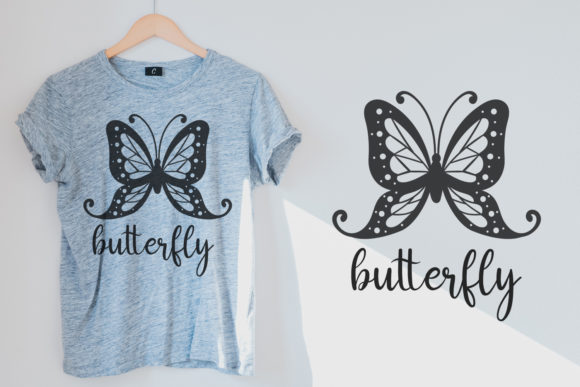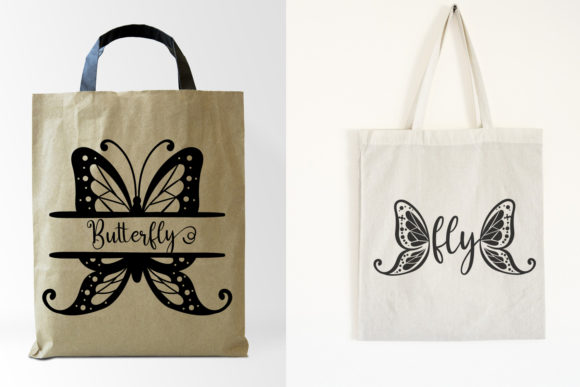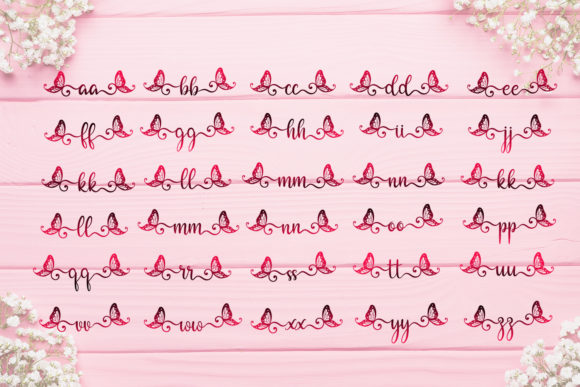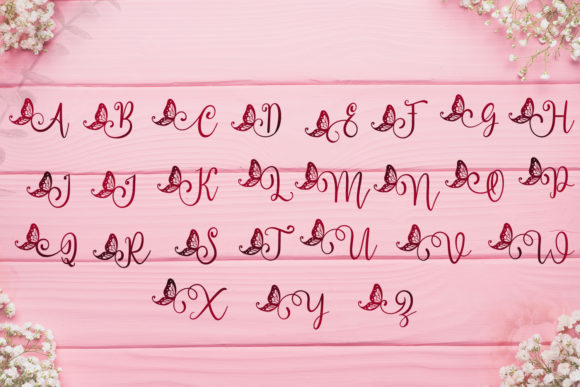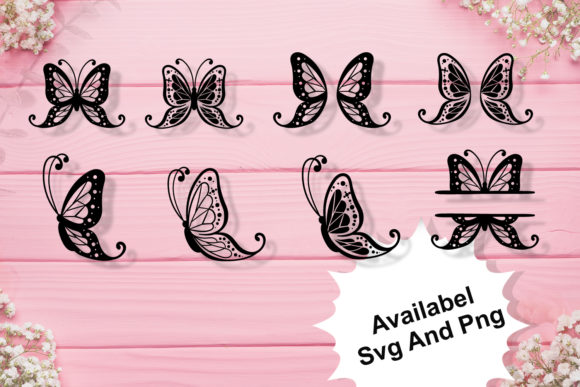
Discover the Elegance of Adelina Font: A Perfect Choice for Designers and Crafters
Are you looking for a font that exudes charm and elegance? Look no further than the Adelina Font. This beautiful, handwritten font is perfect for adding a touch of sophistication to any design project. Whether you’re working on wedding invitations, thank you cards, quotes, greeting cards, logos, business cards, or any other design that needs a personal touch, Adelina Font is an excellent choice.
What Makes Adelina Font So Special?
Adelina Font is a stunning script font that feels equally charming and elegant. Its unique features make it stand out from other fonts, making it a must-have for designers and crafters. Here are some of the key features that make Adelina Font so special:
- PUA Encoding: Adelina Font is PUA encoded, which means you can access all of the glyphs and swashes with ease. This makes it easy to use and customize, even for those who are new to font design.
- Varying Baseline: The font features a varying baseline, which gives it a natural, handwritten look. This makes it perfect for designs that need a personal touch.
- Smooth Lines: Adelina Font has smooth lines that flow effortlessly, creating a beautiful and elegant look.
- Gorgeous Glyphs: The font comes with a range of gorgeous glyphs, including stunning alternates. This allows you to add variety and interest to your designs.
Perfect for a Range of Design Projects
Adelina Font is versatile and can be used for a range of design projects. Here are some ideas to get you started:
- Wedding Invitations: Add a touch of elegance to your wedding invitations with Adelina Font. Its beautiful script and charming feel make it perfect for formal wedding designs.
- Thank You Cards: Show your appreciation with beautifully designed thank you cards featuring Adelina Font.
- Quotes: Add a touch of sophistication to your quote designs with Adelina Font. Its elegant feel makes it perfect for inspirational quotes, motivational sayings, and more.
- Greeting Cards: Create stunning greeting cards for special occasions, such as birthdays, anniversaries, and holidays.
- Logos: Use Adelina Font to create a beautiful and elegant logo for your business or brand.
- Business Cards: Add a touch of professionalism to your business cards with Adelina Font.
Why Designers and Crafters Love Adelina Font
Designers and crafters love Adelina Font for its unique features and versatility. Here are some reasons why:
- Ease of Use: Adelina Font is easy to use, even for those who are new to font design. Its PUA encoding makes it simple to access all of the glyphs and swashes.
- Customization: The font’s varying baseline, smooth lines, and gorgeous glyphs make it easy to customize and create unique designs.
- Elegant Feel: Adelina Font has an elegant feel that makes it perfect for formal designs, such as wedding invitations and business cards.
- Versatility: The font can be used for a range of design projects, from digital designs to print materials.
Adelina Font is a beautiful and elegant script font that is perfect for designers and crafters. Its unique features, such as PUA encoding, varying baseline, smooth lines, and gorgeous glyphs, make it stand out from other fonts. Its versatility and ease of use make it a must-have for any design project that needs a personal touch. Whether you’re working on wedding invitations, thank you cards, quotes, greeting cards, logos, business cards, or any other design, Adelina Font is an excellent choice.